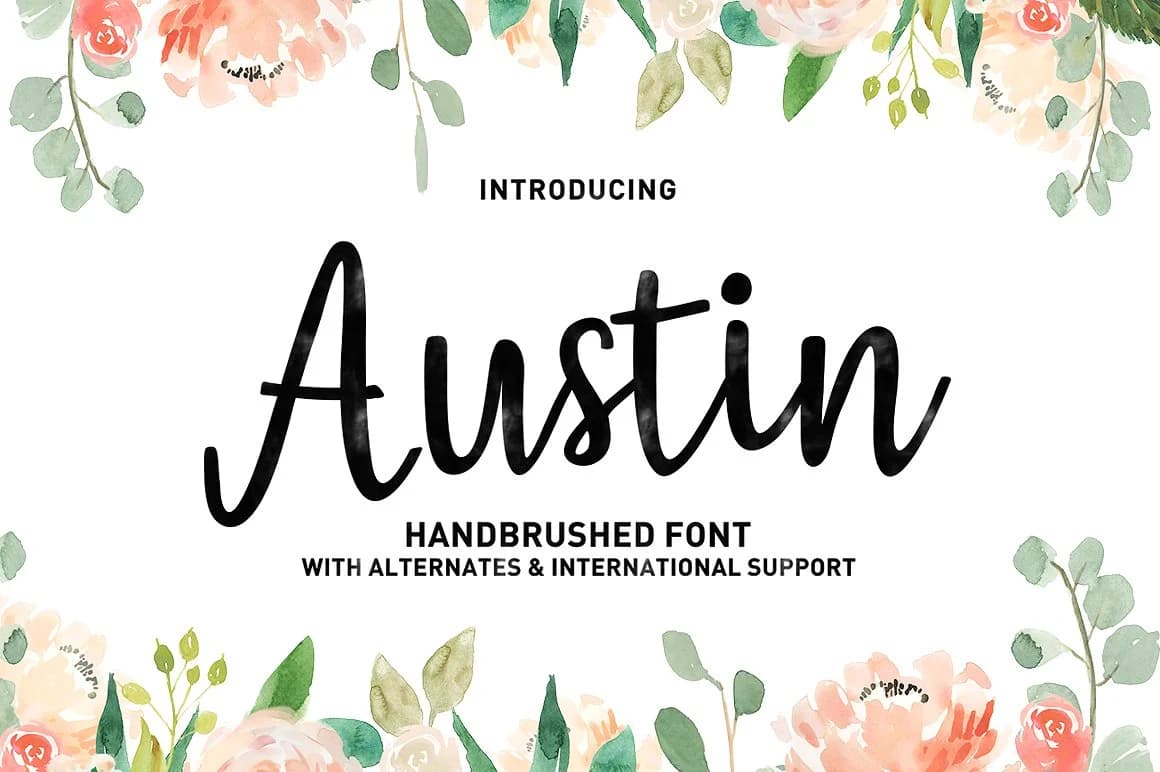
Austin Font by typehill is a contemporary handwritten script featuring an irregular baseline that captures modern femininity through dynamic letterforms and organic character spacing. This display typeface brings personality and approachable elegance to design projects that demand a personal, crafted touch while maintaining visual impact and legibility across various applications and scales.
The font excels in projects requiring authentic handmade aesthetics paired with contemporary sensibility. It's particularly well-suited for wedding invitation suites where the irregular baseline adds romantic movement and handcrafted warmth, custom product labeling for boutique brands and artisanal businesses, event stationery and programs that benefit from genuine personality, and social media graphics for creative enterprises seeking an authentic, hand-lettered aesthetic. The playful baseline structure becomes a design asset rather than a limitation, introducing organic character and visual interest to display applications where perfectly uniform letterforms would feel too corporate or sterile.
Austin Font is a script font that shines as a display or heading face. Pair it with a clean sans-serif or serif font for body text β the contrast creates a clear hierarchy while the two styles stay balanced and easy to read.
Austin Font
by typehill